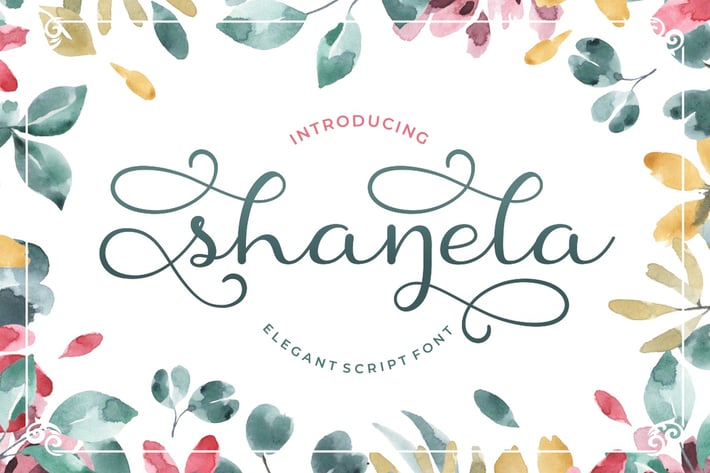
Shanela - Romantic Modern Script Font
Shanela
Introducing a new romantic and modern script font called "Shanela", a lovely and sweet swirly letter font.
Come with open type feature with a lot of alternates and end swash, its help you to make great lettering.
Shanela best uses for heading, wedding event, anniversary, birthday,greeting cards, logotype, branding, wedding invite and card, elegant logo, poster, packaging, stationery, website, any other projects requiring a handwritten, cover, poster, logos, quotes, merchandise, social media & greeting cards and many more.
This font is also support multi language.